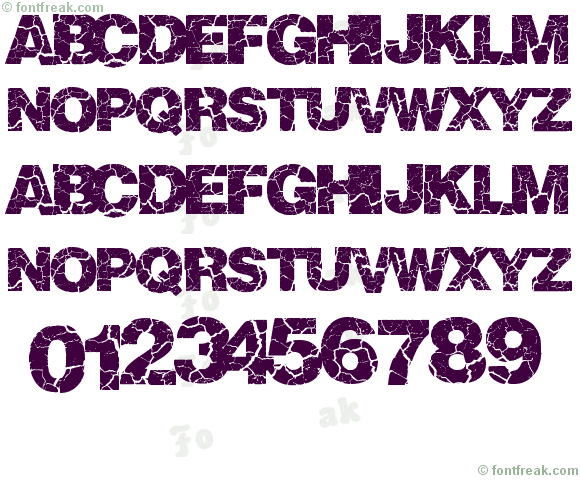
Crackvetica
About Crackvetica
Crackvetica is a striking display typeface crafted by XEROGRAPHER FONTS in 2012. This font showcases a bold, sans-serif style that makes it an eye-catching choice for various design projects. Its unique visual characteristics include a distressed, cracked texture that adds a dynamic and edgy feel, making this typeface stand out in any application. The stroke weight is consistent and robust, while the spacing is well balanced, ensuring readability while maintaining its artistic flair.
Crackvetica is particularly well-suited for a range of creative uses. It’s ideal for movie posters, where its distinctive look can convey a sense of drama and excitement. Additionally, the font works beautifully in promotional materials for music events or festivals, appealing to a youthful and vibrant audience. Restaurant menus seeking to create a rustic and inviting atmosphere will find Crackvetica to be a fitting choice, as it adds a unique charm to the text. Small business owners looking to establish a memorable brand identity will also benefit from using this font in their logo designs or marketing collateral.
In conclusion, Crackvetica stands out due to its bold personality and artistic texture, making it an excellent choice for projects that require a touch of individuality. Whether you are designing a captivating poster or looking to enhance your branding, the Crackvetica font free download offers a unique tool to elevate your designs and engage your audience effectively.